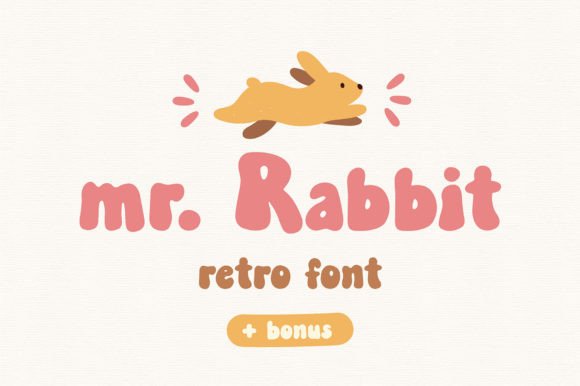
Introduce your kids to the whimsical world of Mr. Rabbit, a playful and charming handwritten font perfect for capturing their imagination. Designed to bring life to any project, Mr. Rabbit's bold and retro style adds a touch of nostalgia and fun.
With Mr. Rabbit Font, your little ones can express their creativity and make their words dance off the page. From school projects and personalized letters to imaginative stories and heartfelt greetings, this font will become their go-to choice for adding a personal touch to their creations.
Unlock a treasure trove of possibilities with Mr. Rabbit's versatile nature. Its bold strokes and playful curves lend themselves perfectly to a range of projects, from eye-catching posters and vibrant invitations to unique greeting cards and captivating social media posts.
Mr. Rabbit's charm knows no bounds. Its timeless appeal makes it a perfect match for a variety of designs, from playful children's books and enchanting logos to captivating marketing materials and joyful packaging. Let your imagination run wild and explore the endless creative possibilities that await.
Transport yourself to a world where imagination meets reality. Mr. Rabbit's hand-lettered design evokes a sense of nostalgia, reminiscent of classic children's stories and vintage toys. Its retro charm adds a touch of warmth and whimsy to any project, creating a connection that resonates with both young and old.
Embrace the joy of self-expression with Mr. Rabbit. Its unique and playful style encourages kids to let their creativity shine through. Whether they're writing a heartfelt letter to a friend, crafting a personalized invitation, or designing a creative poster, Mr. Rabbit provides the perfect canvas for their imagination to flourish.